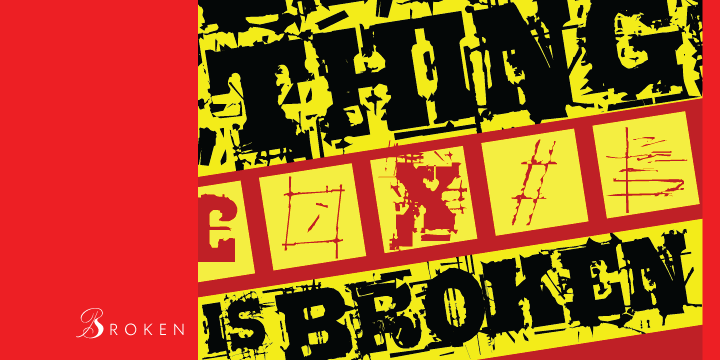
Broken is a grunge font published by Canada Type.
Broken is a grunge font with two interchangeable sets of uppercase. Its forms are in the Egyptian style of the early- to mid-nineteenth century, and the totality of its setting gives off the impression of a most unfortunate letterpress situation, with badly cut punches, uncontrolled ink spread, and metal shards and slivers strewn all about.
Available in all mainstream font formats, Broken works very well and has a very unique appearance in design concepts where the overall visual can benefit from harshness, erosion, destruction or weathering.